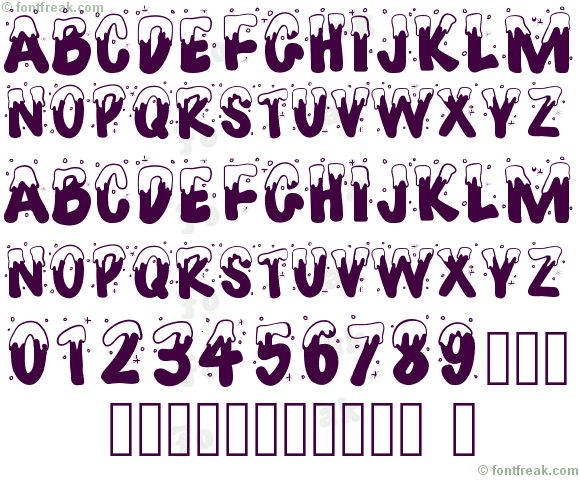
PWJoyeuxNoel
The PWJoyeuxNoel font by Peax Webdesign is a charming display typeface that captures a whimsical and festive spirit. This decorative font boasts a unique visual style characterized by its playful, rounded letters adorned with delightful decorative elements such as snowflakes and other seasonal motifs. The stroke weight is consistent, providing a cohesive look, while the spacing between characters is generous enough to ensure readability, making it an ideal choice for eye-catching designs.
This font is particularly well-suited for a variety of creative applications. It shines in holiday-themed projects, making it perfect for Christmas cards, festive invitations, and seasonal marketing materials. Additionally, PWJoyeuxNoel can elevate your restaurant menus, especially during the holiday season, by adding a touch of joy and celebration to the dining experience. Graphic designers will find it an excellent option for designing playful posters or promotional materials that require a light-hearted touch. Content creators can also leverage this font in social media graphics to engage their audience with seasonal content.
Targeting graphic designers, small business owners, and content creators alike, the PWJoyeuxNoel font offers a free and accessible option for those looking to enhance their visual storytelling. Its cheerful and festive aesthetic makes it an attractive choice for anyone wanting to infuse their projects with a sense of holiday cheer.
What sets the PWJoyeuxNoel font apart is its ability to evoke joy and nostalgia through its design. The combination of its playful characteristics and versatility ensures that it can be effectively used across various media. Whether you are crafting a heartfelt greeting or promoting a holiday event, the PWJoyeuxNoel font free download provides a delightful solution to your typography needs.